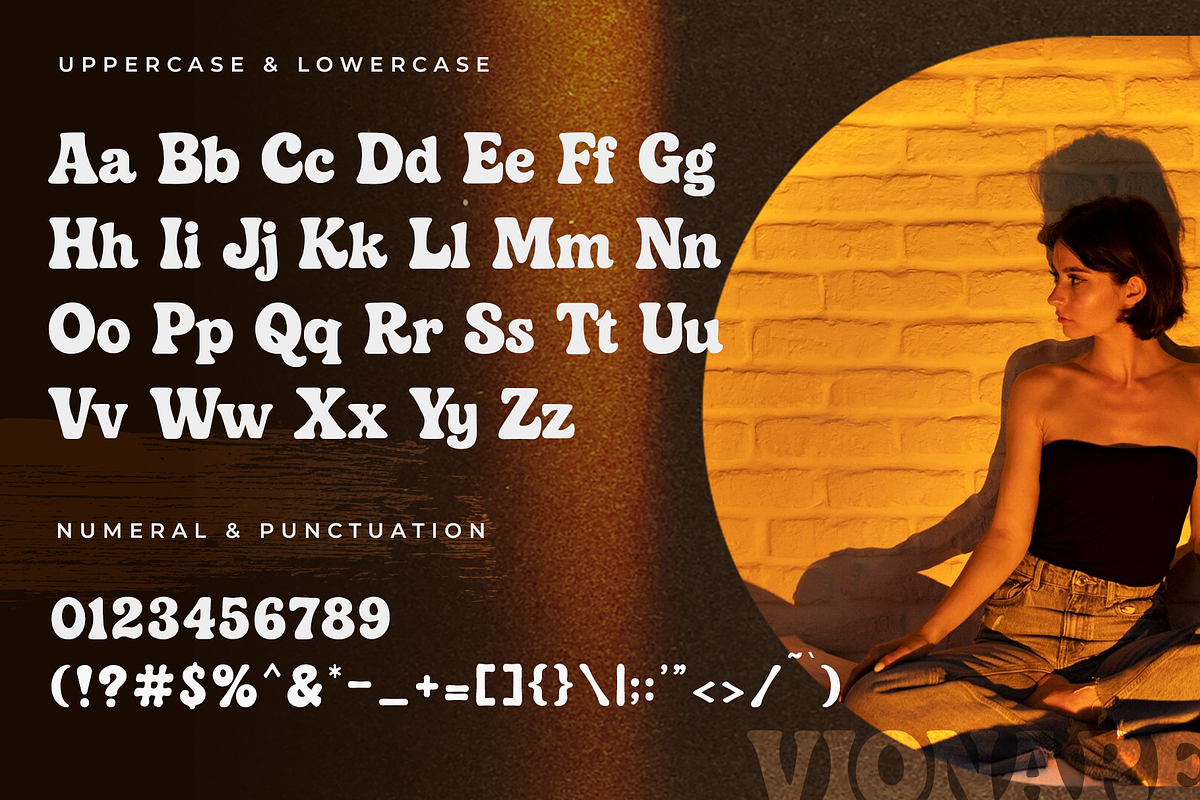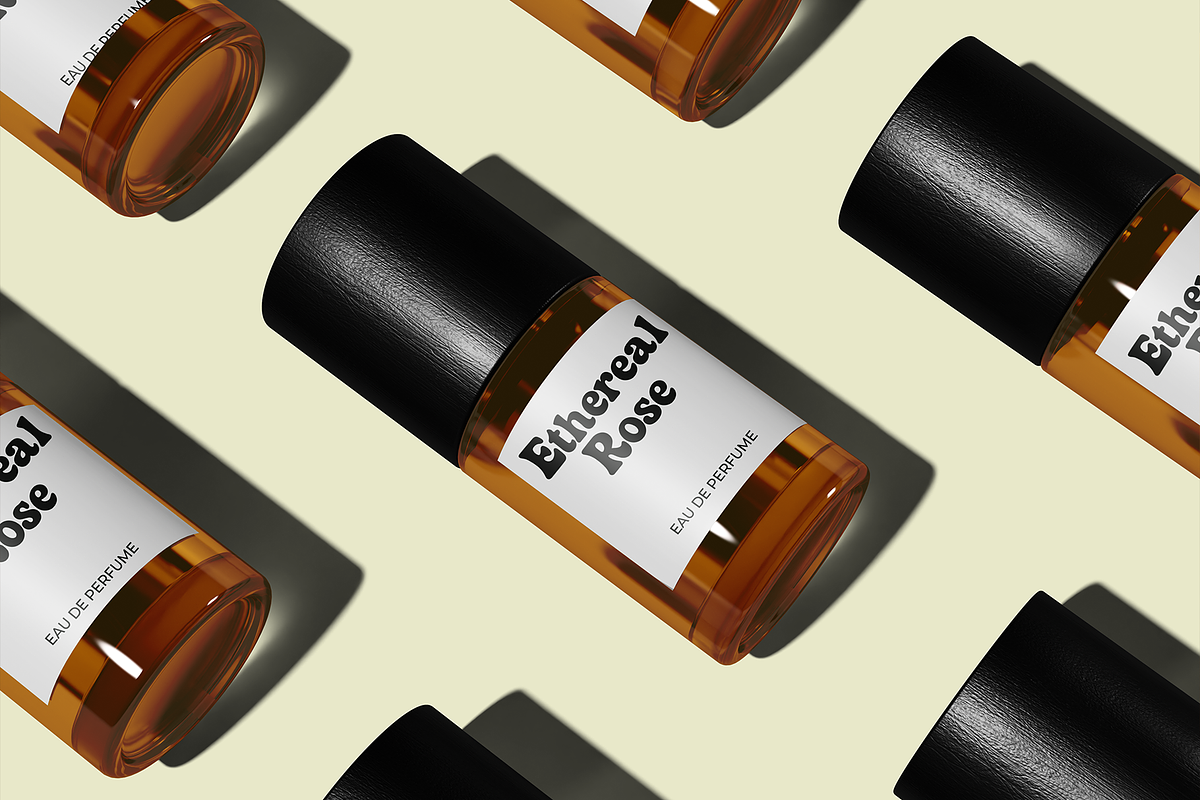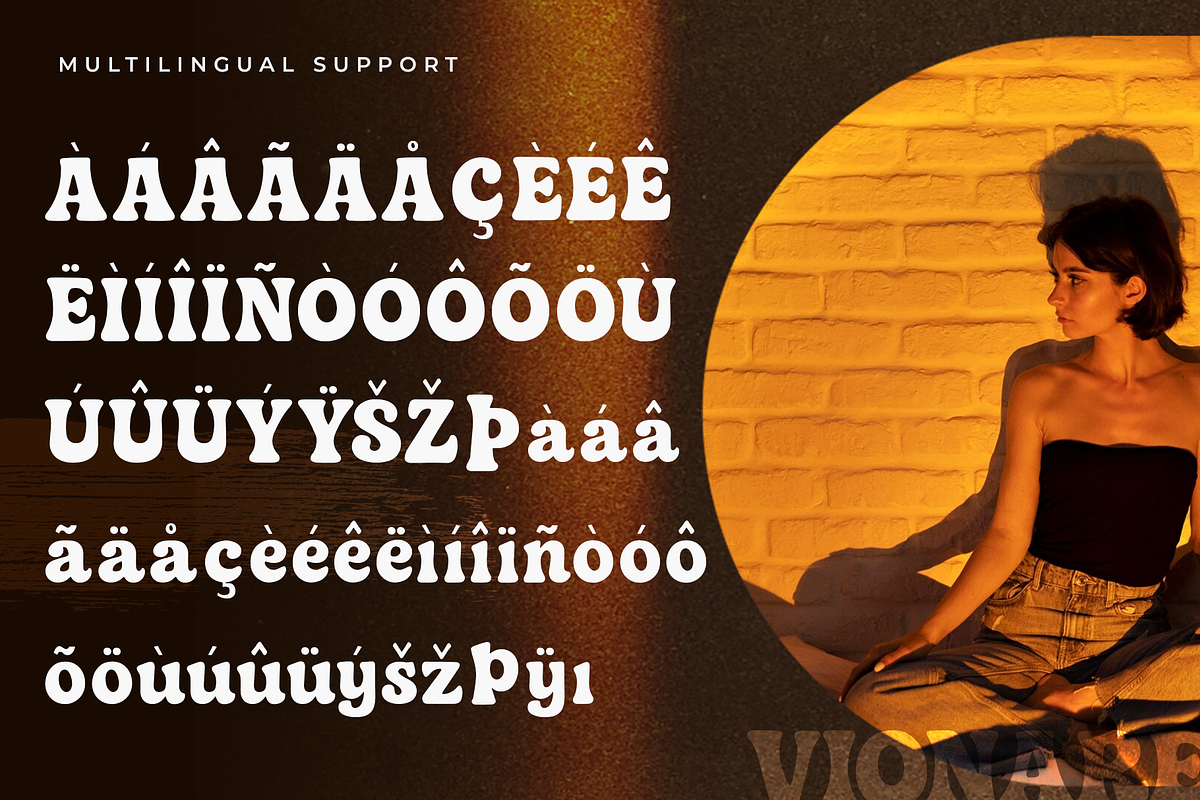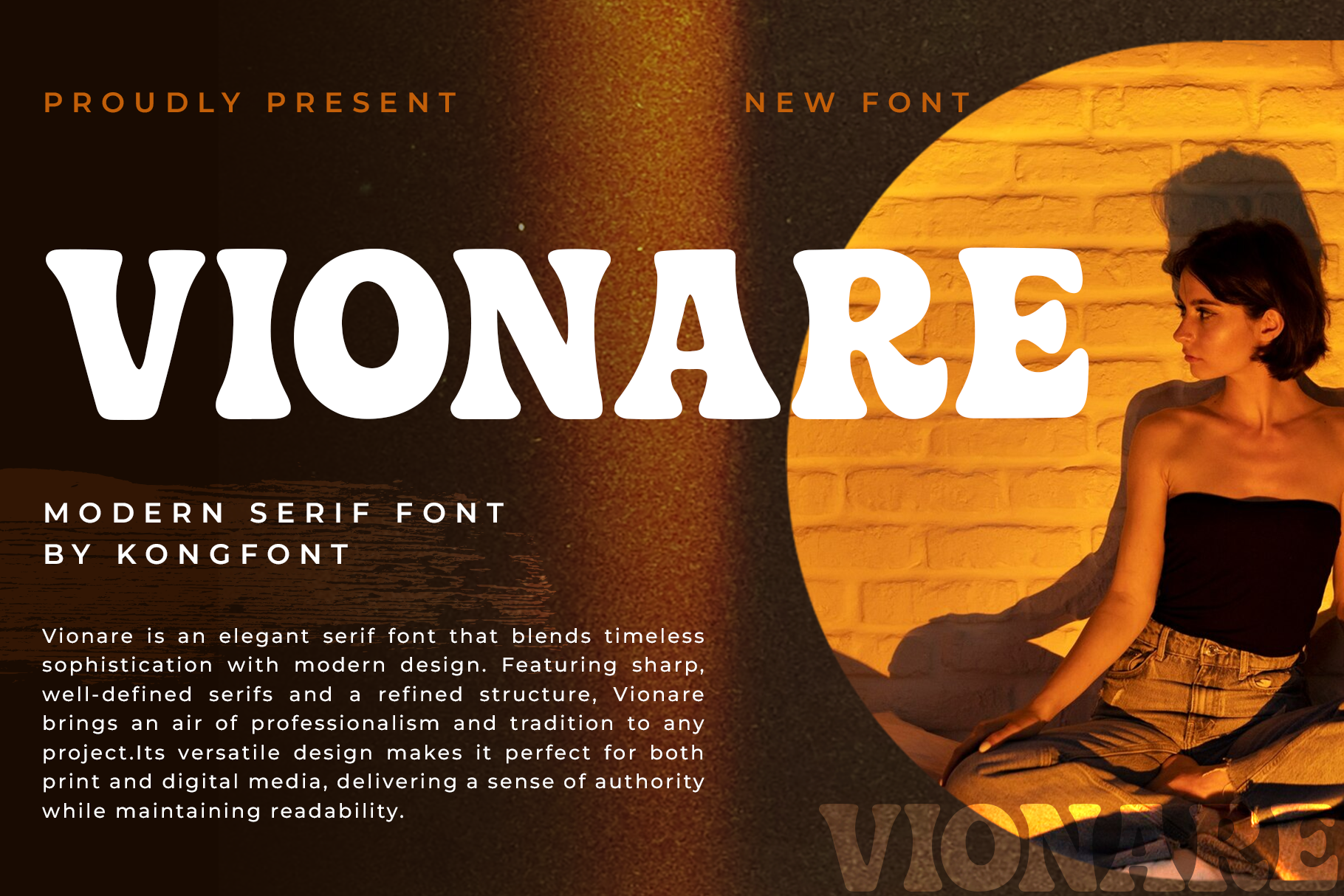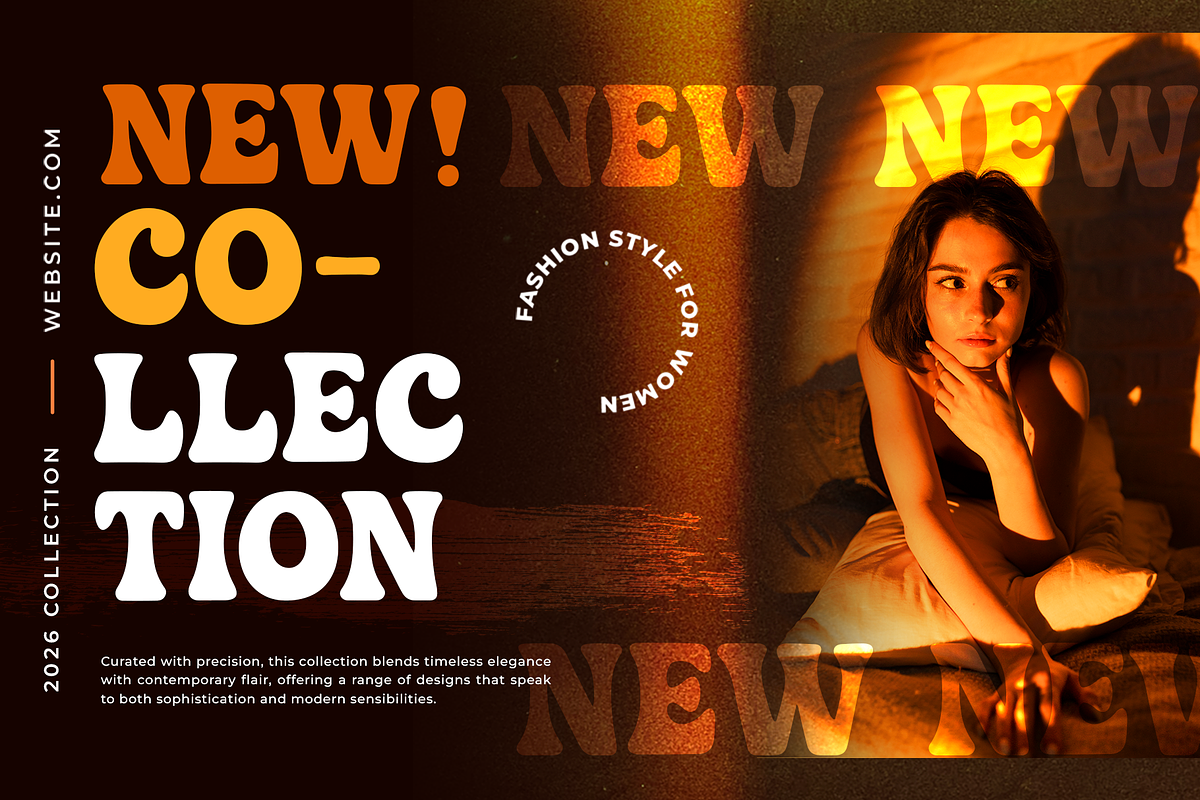
Vionare - Modern Serif Font
Introducing Vionare, a modern serif font crafted to blend timeless sophistication with a clean, contemporary look. Featuring sharp serifs, balanced proportions, and smooth transitions, Vionare offers a refined typographic presence suitable for both minimal and luxurious design directions.
Perfect for branding, editorial layouts, logos, packaging, invitations, fashion lookbooks, and website headers, Vionare brings an elevated sense of professionalism and style. Its well crafted letterforms provide excellent readability, making it ideal for both display and body text applications.